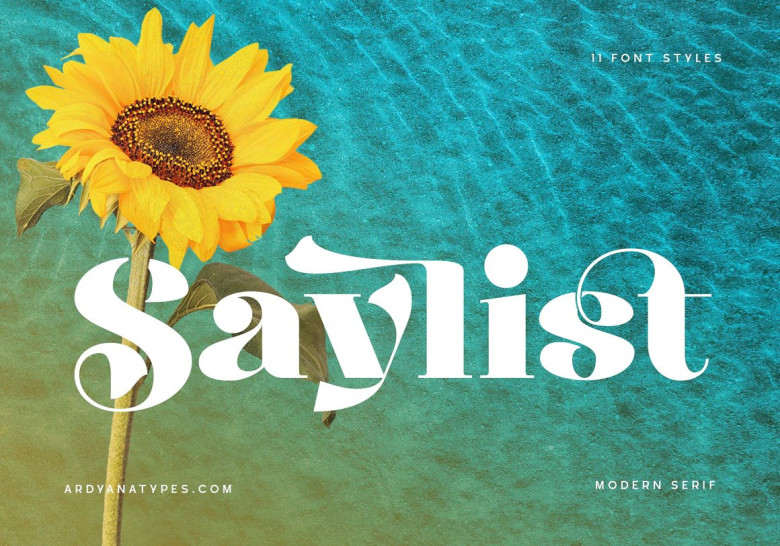
Saylist Font
Saylist is a serif font that invites a sense of luxury and elegance. Its many features will make your designs look gorgeous and sophisticated. This is a highly recommended font for arks, brands and logos. However, its flexibility allows you to use it in a wide range of design themes as well–luxurious, unique, vintage, elegant…
Its unique shape is a key feature of Saylist, giving your designs a sense of creativity. The font’s clean lines and sharp edges make it easy to read, while its elegant curvesadd a touch of gentility. With balanced letterforms and spacing that is consistent throughout it gives Saylist a harmonious entire look making it an excellent choice for any design project.
Saylist Serif Font